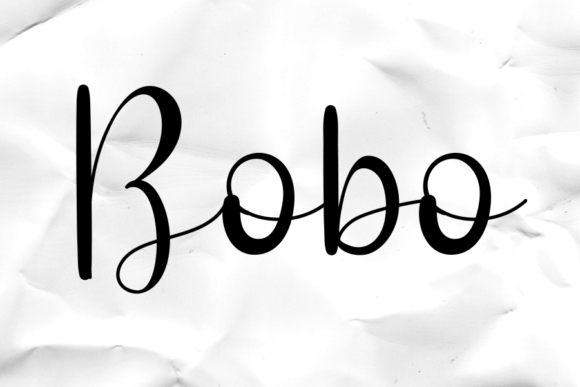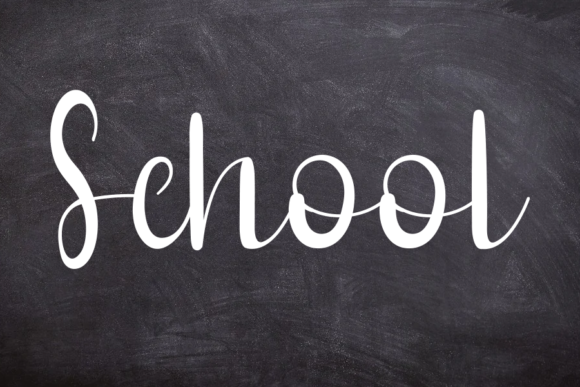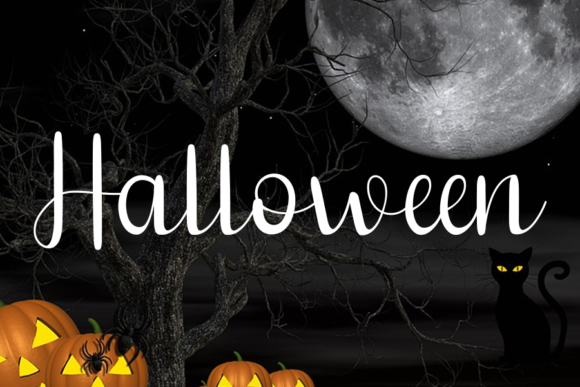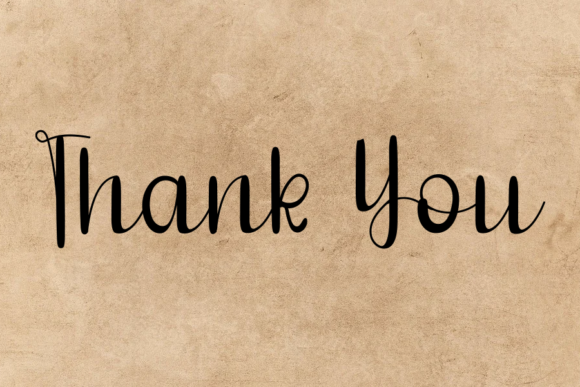
About Autumn Font
Autumn is a sweet and cursive handwritten font. This gentle font will look gorgeous on a variety of design ideas. It will add a joyful and romantic touch to each of your projects!